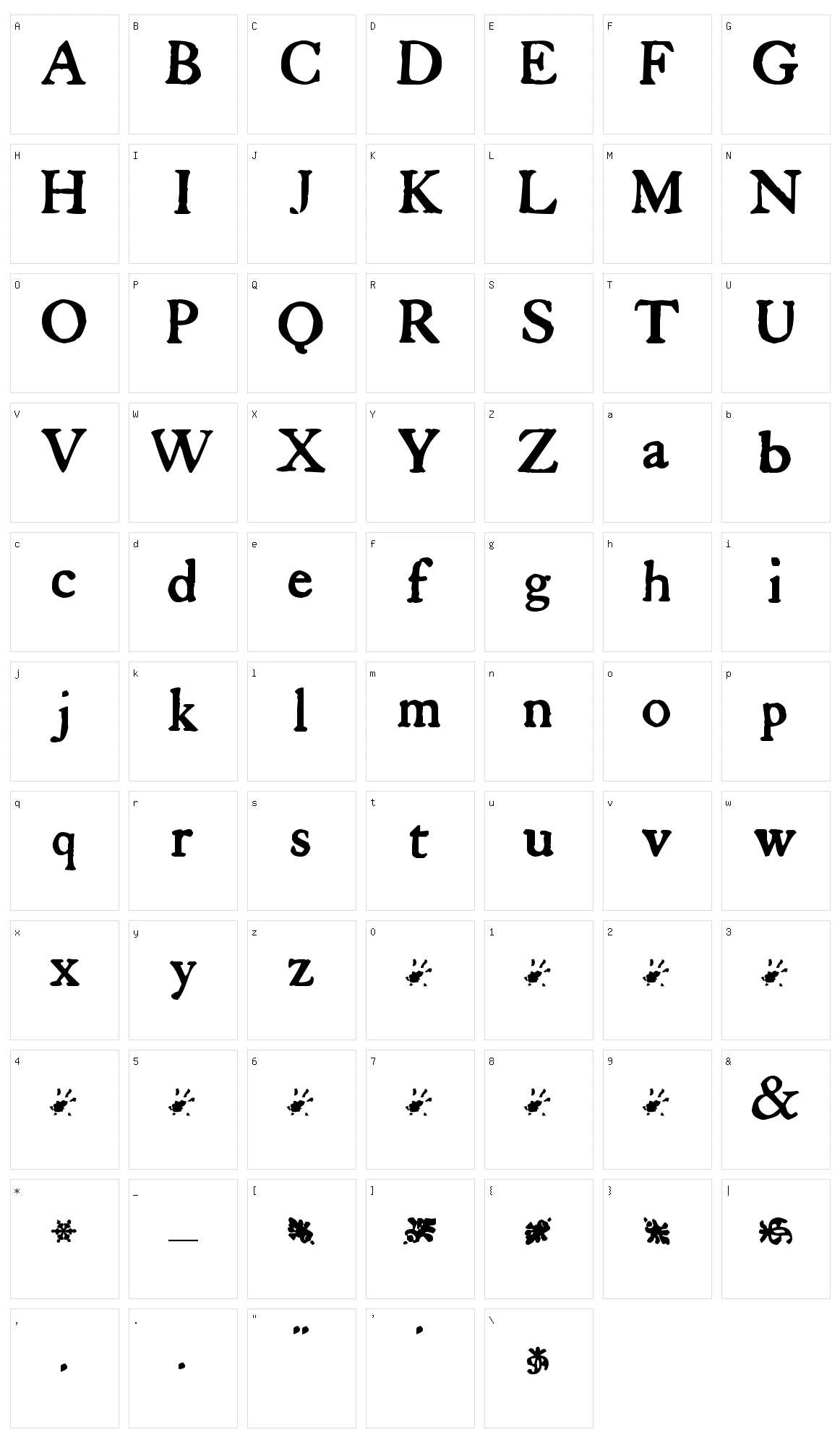
Tuer's Cardboard font
Made by Staffan Vilcans.
The design is taken from a cardboard battledore in Tuers "History of the Horn-Book", 1896.
Converted to a TrueType font by Staffan Vilcans.